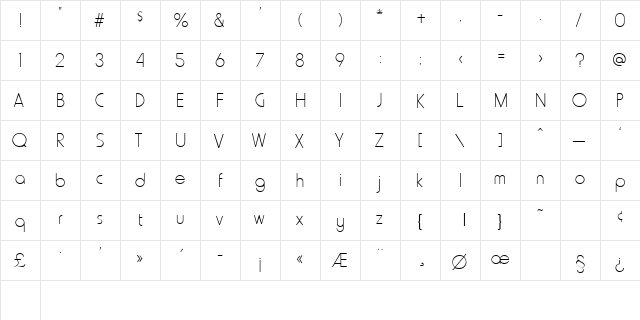
Shemp Thin Regular
Design Context for Shemp Thin Typeface
Shemp Thin is a composed and adaptable typeface that performs quietly and consistently across a wide range of design contexts. Its slender proportions lend an understated elegance to any composition.